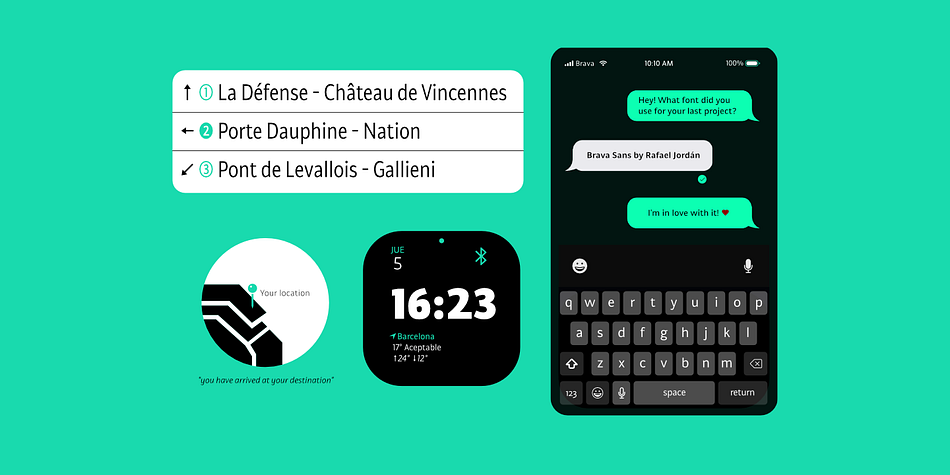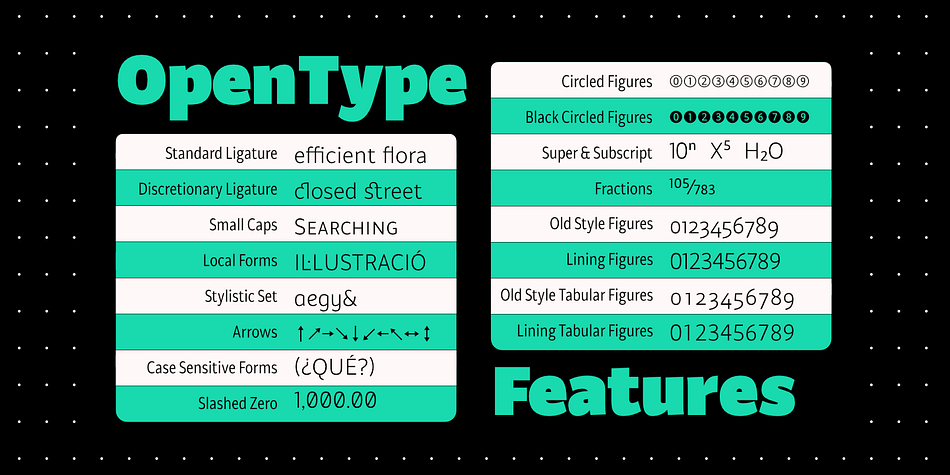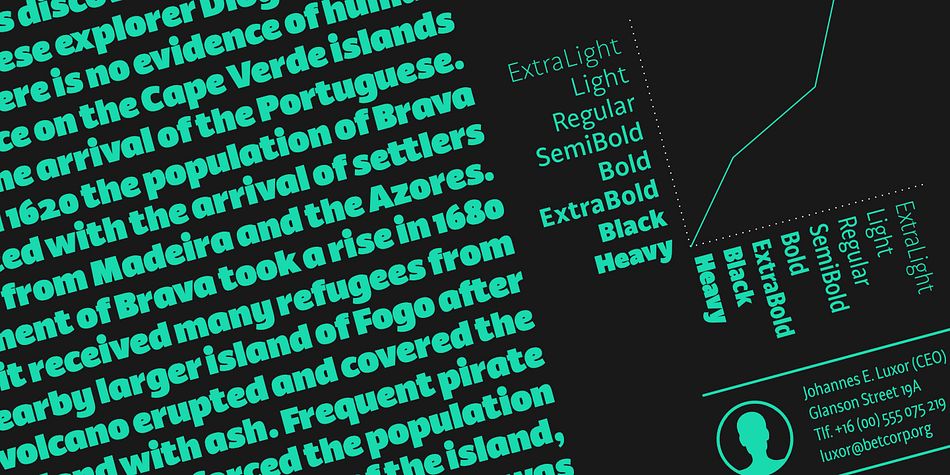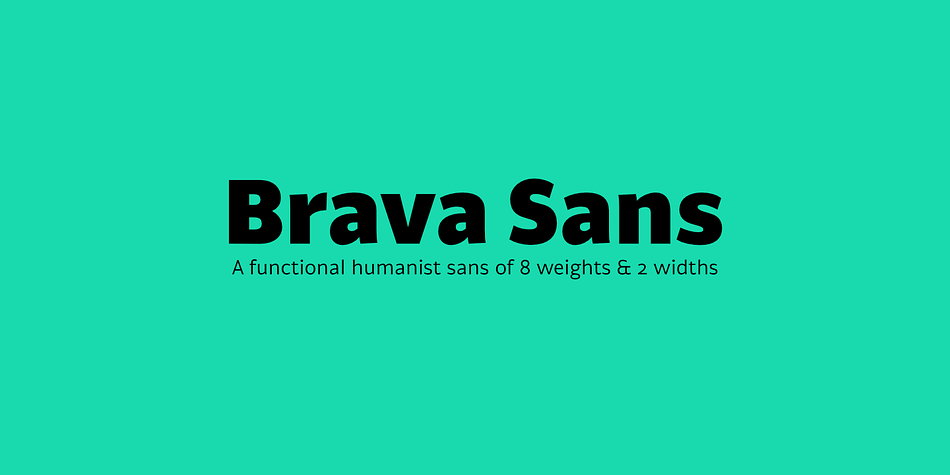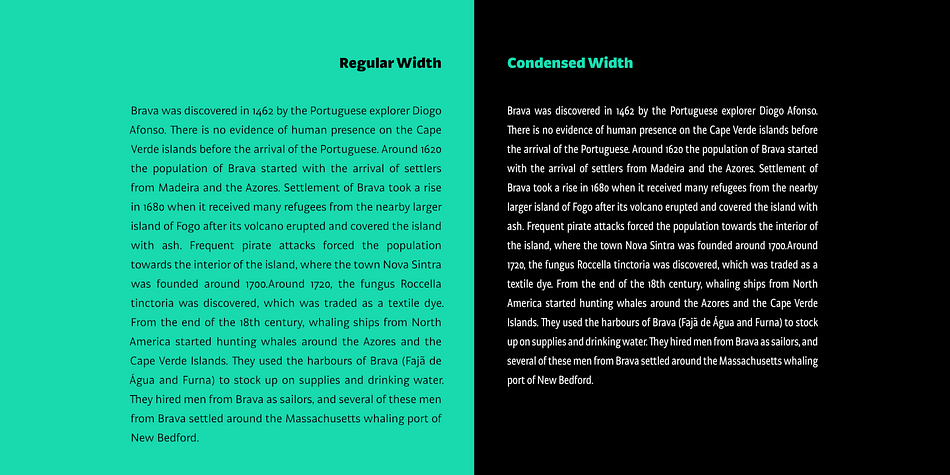
Designed by Rafael Jordan, Brava Sans is a sans serif font family. This typeface has twenty-four styles and was published by Rafael Jordan.
Brava Sans (the naked & extended version of Brava Slab) is a family of 8 weights, 2 widths and true italics. Designed for editorial purpose, it has a monolinear appearance with a humanist construction, open counters and a tall “x height” that give it a right personality for use in branding. Also Brava Sans has a lot of helpful features as a wide range cover of Latin languages, a lot of OpenType features, a new condensed width and two bolder and cooler weights that make Brava Sans a useful tool for the graphic designer.
A full range of numerals (included old style figures, lining, numerators, denominators, superiors, subs, circled and black circled), small caps, forty ligatures (between standard & discretionary ligatures), a lowercase superior and inferior set and a stylistic set are some of the features that makes Brava Sans a solid choice.